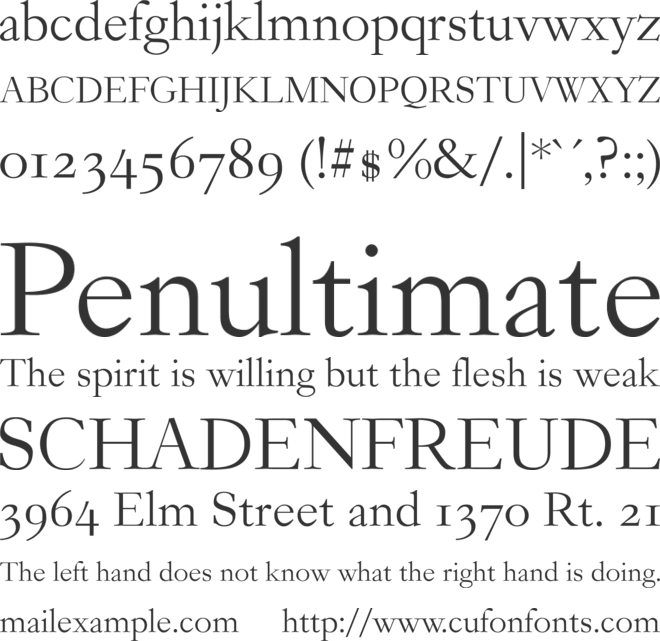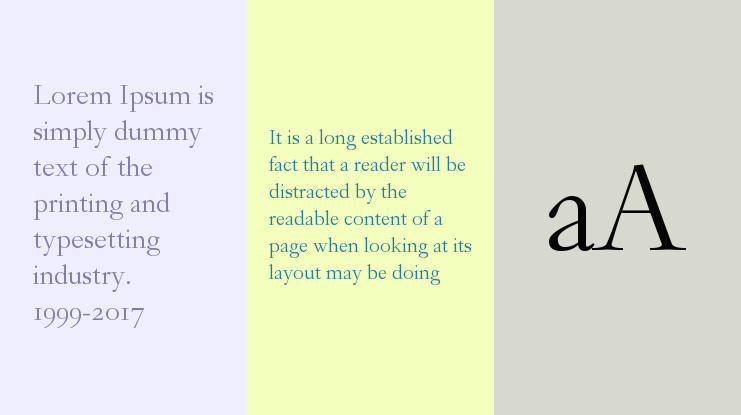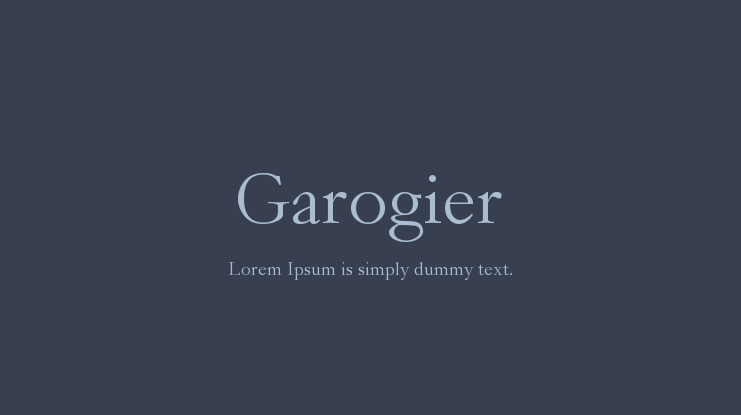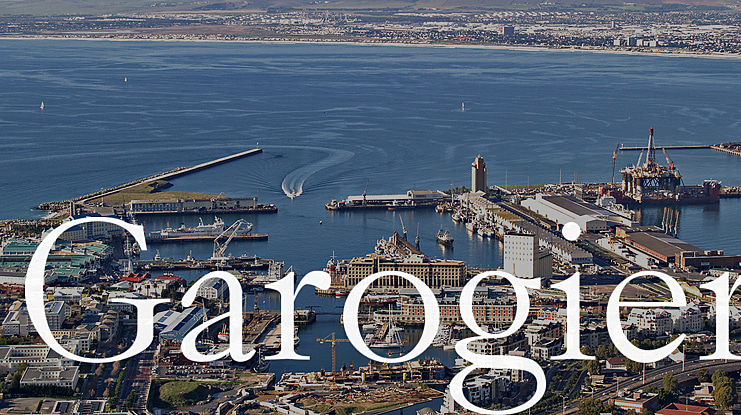
Garogier Font
Rogier van Dalen
Garogier is a typeface not unlike Garamond (hence the name). It will have optical size through its instructions (i.e. at low sizes, also when it is used on a high-resolution device such as a printer, the characters are changed slightly to increase readablity). This is supported by Windows 98 and up (this includes 2000 and XP). Freetype does not support it (yet).
I have not supplied a hinted version for the moment though. The font has kerning through the OpenType feature "kern", supports ligatures ("liga"), both lining and old-style figures ("lnum") and small caps ("smcp"). If you are used to looking at Greek letters: I'd like to have some feedback on those before I go on to instruct them.